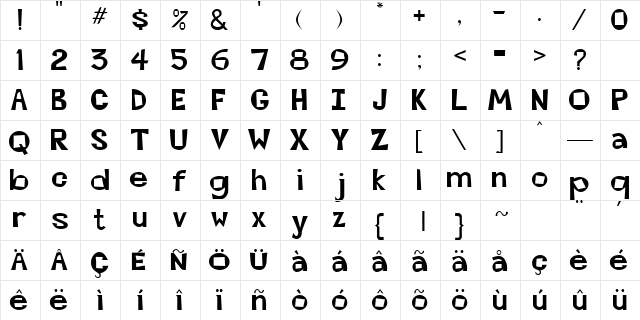
Cocktails Regular Font Preview
Cocktails Regular
Cocktails Regular Font Details
Design Context for Cocktails Typeface
Cocktails offers clean, dependable letterforms without strong stylistic allegiance, making it a practical choice for designers who need flexibility.